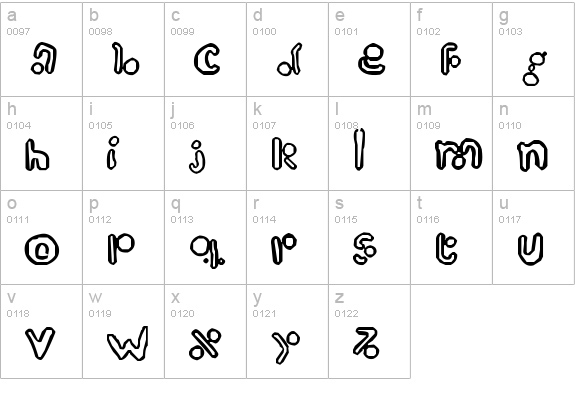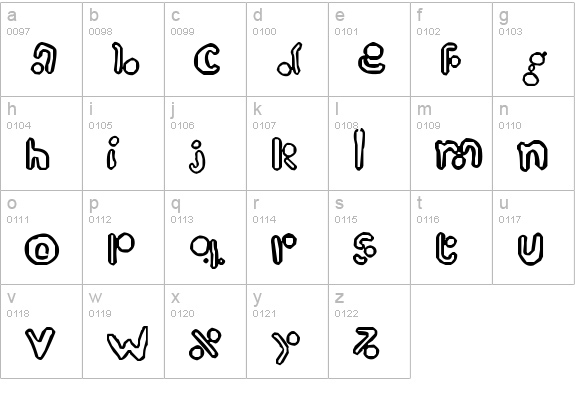
Alien Crops Font Details
Alien Crops font is a futuristic and otherworldly typeface that brings a touch of extraterrestrial flair to your design projects. With its unique and intricate glyphs inspired by alien hieroglyphs, this font is perfect for creating a mysterious and captivating atmosphere. Whether you're working on a sci-fi poster, a space-themed website, or a futuristic branding project, Alien Crops font will make your text stand out and grab attention. The best part? Alien Crops font is available for free download at FontsMarket.com. Simply head over to the website and add this one-of-a-kind font to your collection without any cost. Embrace the unknown and let Alien Crops font take your designs to new dimensions.